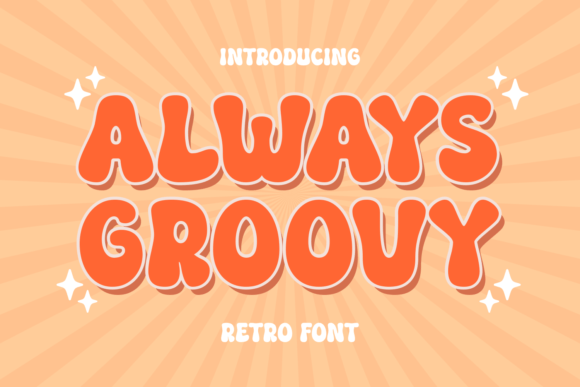
The Groovy Design Moment: When Fonts Make All the Difference
I’ll never forget the time I was working on a design project for a client who wanted a retro-themed poster for their flower-power inspired cafe. I had the concept, the colors, and the graphics, but something was missing – the perfect font. I scoured the internet, tried out a dozen fonts, but none seemed to capture the carefree, hippie vibe I was going for. That’s when I stumbled upon Always Groovy, a fun, retro-style display font that instantly transported me back to the ’60s. In this article, I’ll share my experience with Always Groovy, its features, and how to make the most of it in your designs.
An Honest Review of Always Groovy
- ✨ The casual and cheerful vibe of Always Groovy makes it perfect for hippie, flower-power designs.
- ✅ It’s PUA encoded, which means easy access to all glyphs and special characters.
- 🎉 The font is versatile and can be used for a variety of design projects, from posters to social media graphics.
⚠️ While Always Groovy is a fantastic font, it’s essential to note that it’s a display font, which means it’s best used in larger sizes. For body text, you might want to pair it with a more legible font. 🤔 Additionally, some users might find the font a bit too playful, so it’s crucial to consider your design’s tone and audience.
Always Groovy is an OpenType font, which means it comes with a range of features and glyphs to enhance your designs. Here are a few tips on how to make the most of these features:
- Use the OpenType panel in Adobe applications to access stylistic alternates, swashes, and other features.
- Experiment with different glyph combinations to create unique and eye-catching designs.
The Designer Inspiration Behind Always Groovy
While the true story behind Always Groovy’s creation is unknown, it’s easy to imagine that the designer was inspired by the carefree, creative spirit of the 1960s. Perhaps they spent hours pouring over vintage posters, typography, and design elements, distilling the essence of the era into a single, fabulous font.
A: PUA (Private Use Area) encoding allows you to access glyphs and special characters easily, making it simpler to create unique and eye-catching designs.
Q: Is Always Groovy a versatile font?
A: Yes, Always Groovy is a versatile font that can be used for a variety of design projects, from posters to social media graphics.